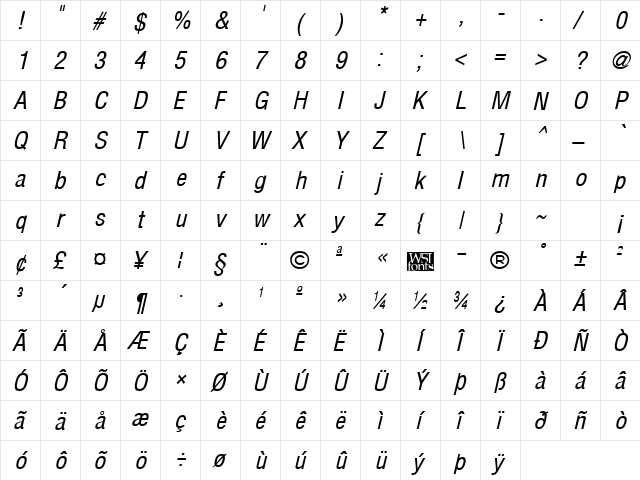
ArenaCondensed Italic Font Preview
Design Context for ArenaCondensed Typeface
ArenaCondensed takes a measured approach to typography — its balanced proportions and neutral character make it a reliable workhorse for both digital and print work. The dynamic lean of this cut emphasises speed and emphasis in any layout. The condensed width makes it efficient for tight spaces without sacrificing legibility.
Pro Tip: Use ArenaCondensed for emphasis, pull quotes, and subheadings where its slanted energy can add rhythm to the layout.